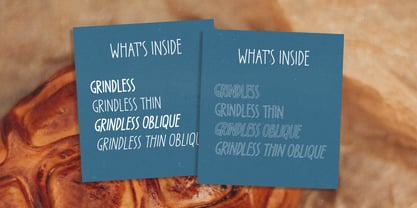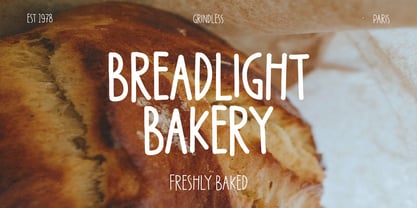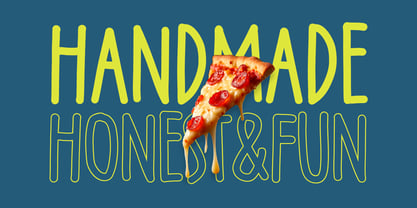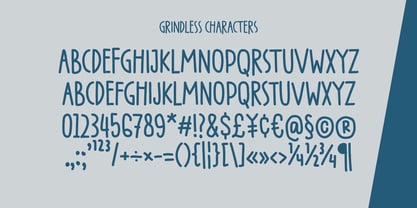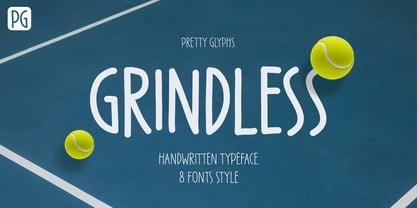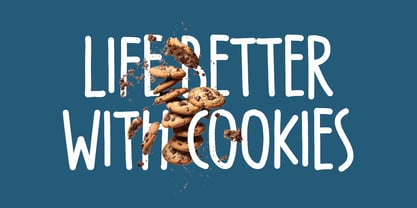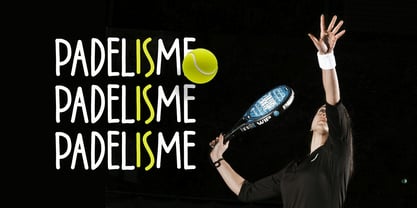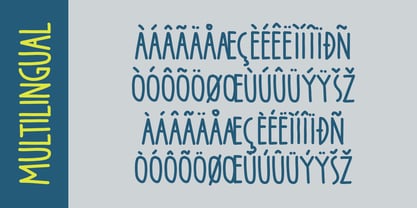
PG Grindless
by Pretty Glyphs
The PG Grindless Font Family was designed by Ulfa Tiara Putri and published by Pretty Glyphs. PG Grindless contains 8 styles and family package options. More about this family
Grindless is a modern handwritten font designed to feel natural, clean, and effortlessly stylish. Inspired by authentic hand lettering, this font delivers a relaxed yet confident look that brings a personal touch to any creative project. Grindless comes with 8 versatile styles, including Regular, Thin, and Oblique variations, allowing you to create dynamic typography combinations with ease. Each style is carefully crafted to maintain consistency while offering flexibility for expressive layouts. Perfect for branding, logos, social media content, quotes, posters, packaging, invitations, and DIY projects, Grindless adds warmth and character without sacrificing readability. Its friendly handwritten feel makes your designs look more personal, modern, and approachable. If you’re looking for a handwritten font that is simple, flexible, and full of personality, Grindless is a reliable choice for elevating your visual identity.
Designers: Ulfa Tiara Putri
Foundry: Pretty Glyphs